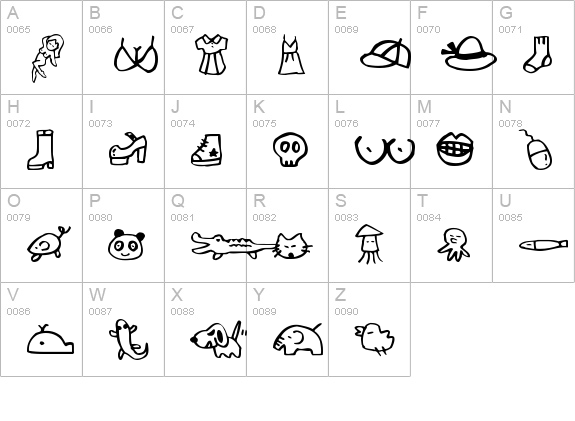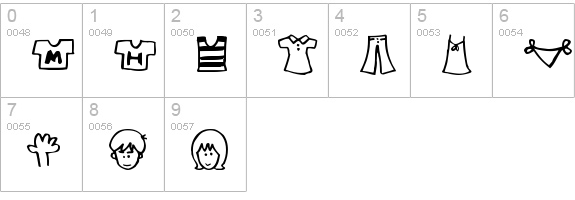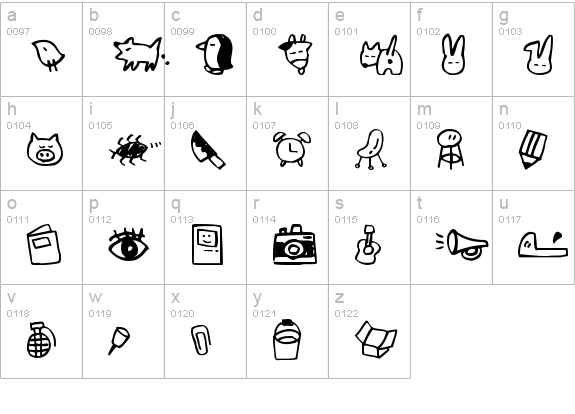
HolidayAi Font Details
HolidayAi font is a whimsical and playful typeface that is perfect for adding a touch of fun to any design project. With its charming and unique style, HolidayAi is sure to bring a festive spirit to your holiday-themed creations. This delightful font features a variety of cheerful characters and decorative elements that will make your text stand out. The best part? HolidayAi font is completely free to download at FontsMarket.com, making it easily accessible for all your design needs. Whether you're working on greeting cards, invitations, posters, or any other festive project, HolidayAi is the perfect choice to add a touch of joy and creativity. Download HolidayAi today and bring a bit of holiday cheer to your designs!